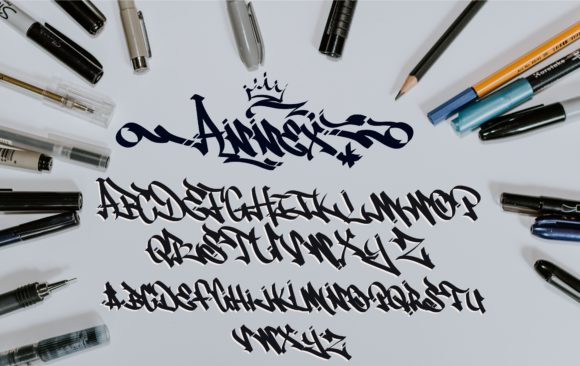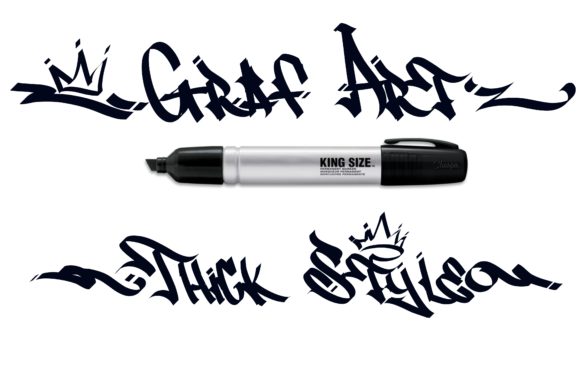
HomeScript FontsAnnex Font Script Fonts Annex Font FacebookXPinterestWhatsApp Annex Font Poster 2 About Annex Font Annex is a strong and distinctive script font inspired by tattoo typefaces. Use it to make any message stand out! DOWNLOAD ON CREATIVE FABRICAThis font is sold and delivered by Creative Fabrica. Font Canyon may earn a commission if you buy through this link. People also explored Farmhouse Font Beatiful Flowers Font Quiltyks Script Font Stitched Letters Font Bright Spring Font Grigory Hello Virginia Font Mailuna Pro Motion Font 430 0 TagsAnnex Font Previous articleNevermind FontNext articleComic Palm Font LEAVE A REPLY Cancel reply Comment: Please enter your comment! Name:* Please enter your name here Email:* You have entered an incorrect email address! Please enter your email address here Website: Save my name, email, and website in this browser for the next time I comment. Personal Use Free Eigha Personal Use Free Read more about this font Delions Personal Use Free Read more about this font Rookie Mastering Personal Use Free Read more about this font Doriath Personal Use Free Read more about this font BLOG Transform Your Website: Elevate Your Typography with 7 Best Web Font Generators Are you ready to transform your website's typography from ordinary to extraordinary? Great! Today, we're diving into the world of web font generators, which... Free vs Paid Fonts: Why Investing in Premium Fonts Is Worth It Modern Sans-Serif Fonts That Brands Love in 2025 Using Fonts in Digital Marketing: Tips to Strengthen Your Brand Identity